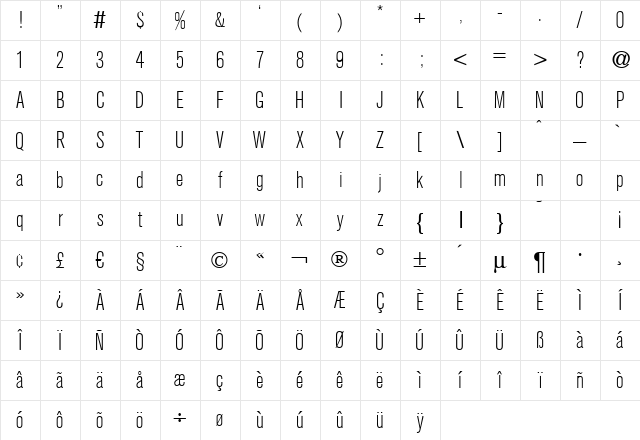
A750-Sans-Cd-Light Regular
Design Context for A750-Sans-Cd-Light
A750-Sans-Cd-Light is a composed and adaptable typeface that performs quietly and consistently across a wide range of design contexts. Its slender proportions lend an understated elegance to any composition.